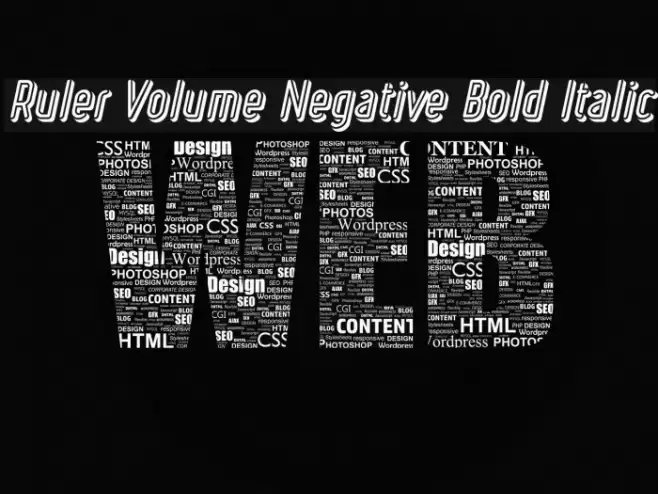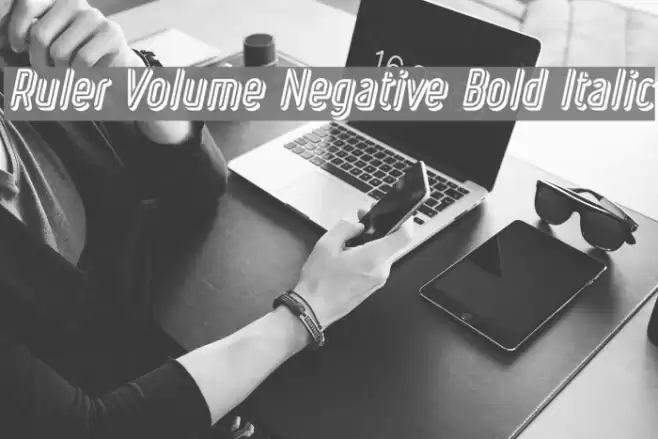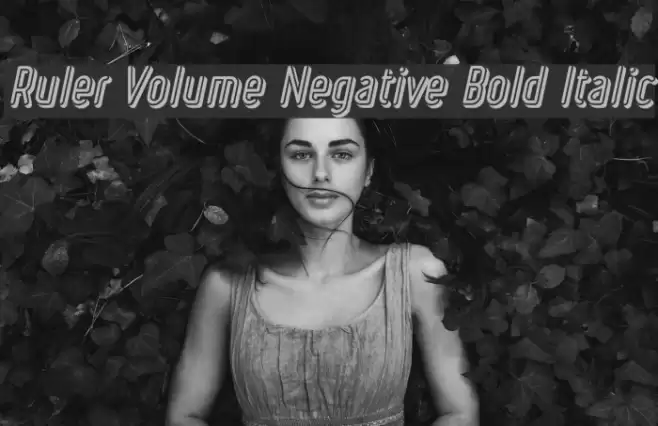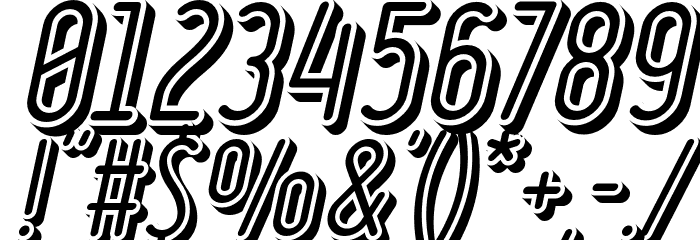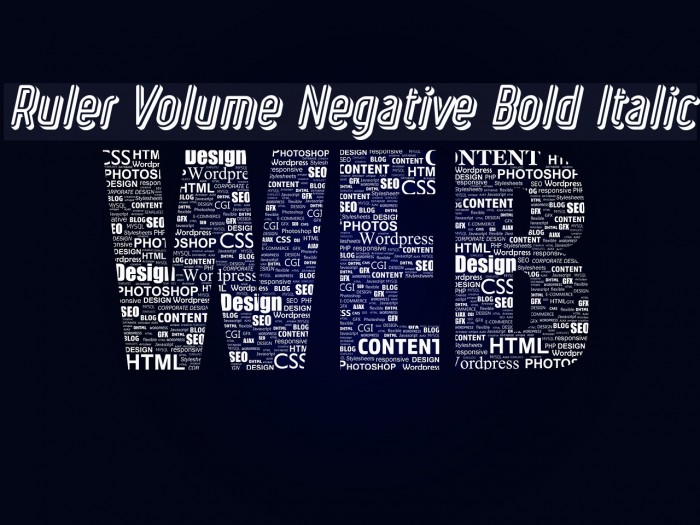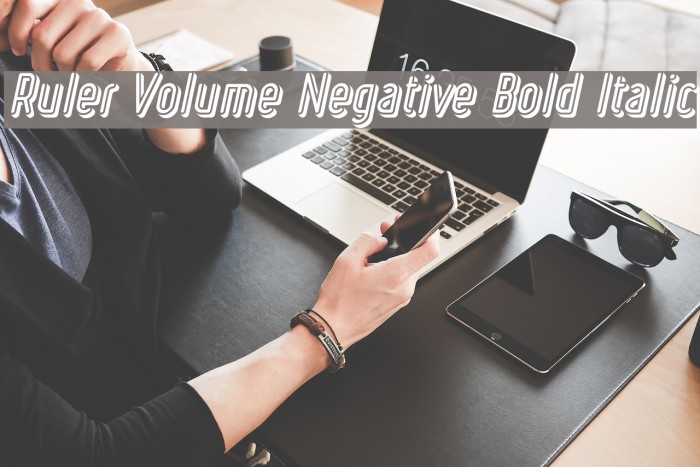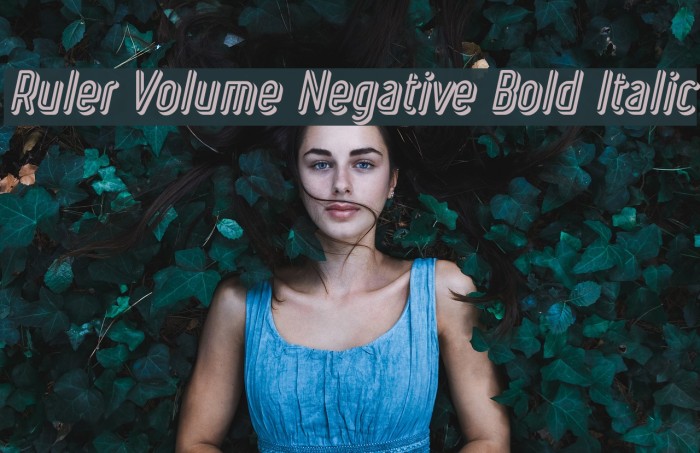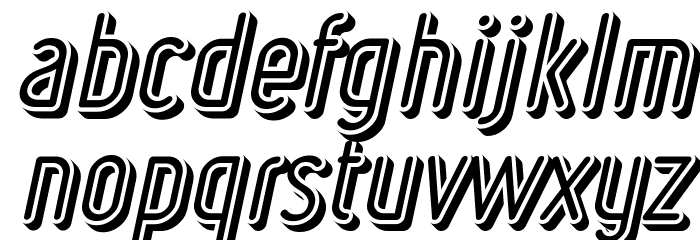
Ruler Volume Negative Bold Italic Font
Ruler Volume Negative Bold Italic Description
This font features a bold and italicized style with a distinctive three-dimensional effect created by its shadowed outline. The characters are uppercase and lowercase letters, numbers, and a variety of special symbols. The design is dynamic and eye-catching, making it suitable for attention-grabbing headlines or creative projects. The strokes are thick, contributing to its bold appearance, while the italic slant adds a sense of motion and modernity. The spacing between characters is normal, allowing for clear readability despite the decorative elements.
A bold, italicized font with a 3D shadow effect, ideal for striking headlines from Uncategorized fonts.
- Proposed Projects: This font is perfect for poster designs, branding projects, and any creative work that requires a bold statement. It can also be used in digital media for titles and banners.